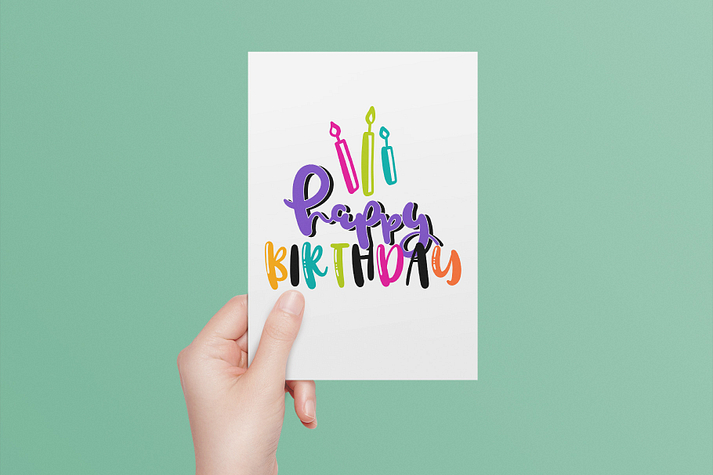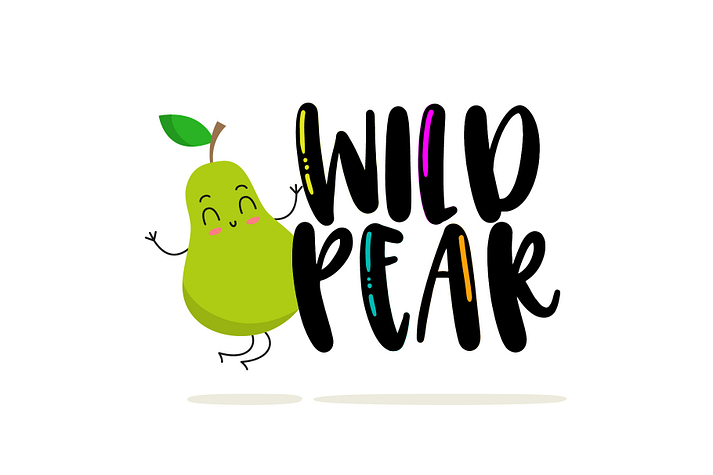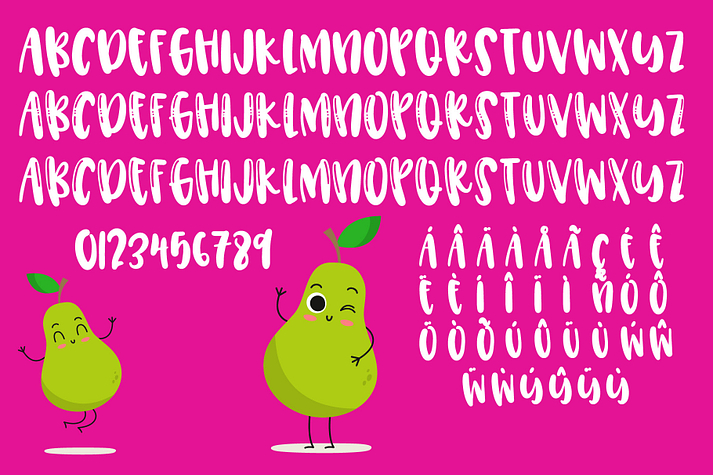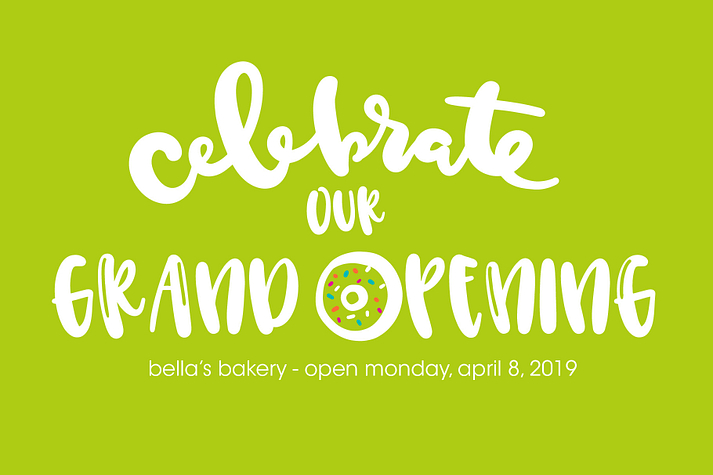
Wild Pear
Wild Pear is a font family published by On The Spot Studio.
Wild Pear is a fun quirky all uppercase font with three variations coded in an OTF font file (you can access the alternates thru the character map!) Also included, quirky extras + words for invites and more!
Foundry On The Spot Studio